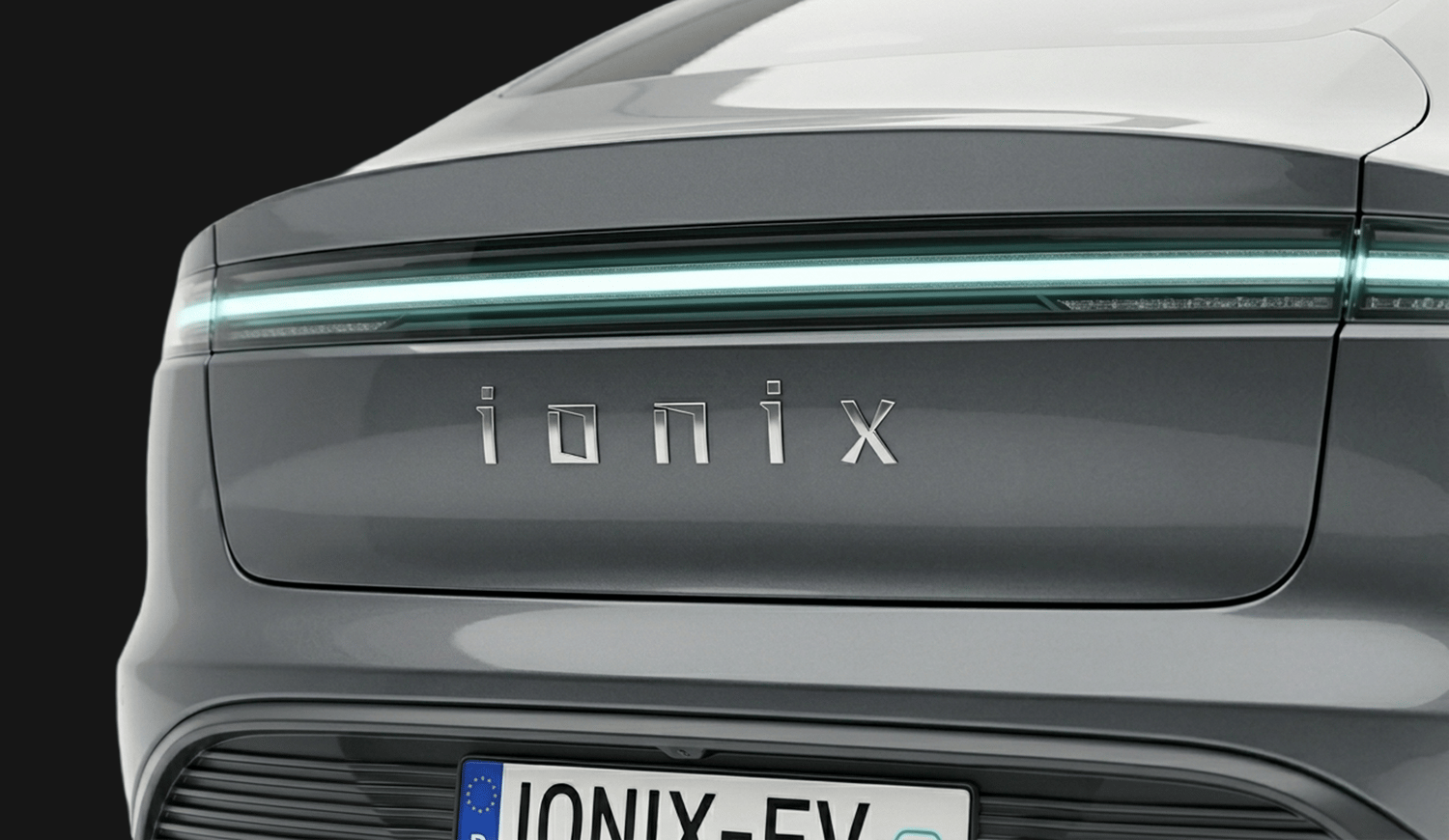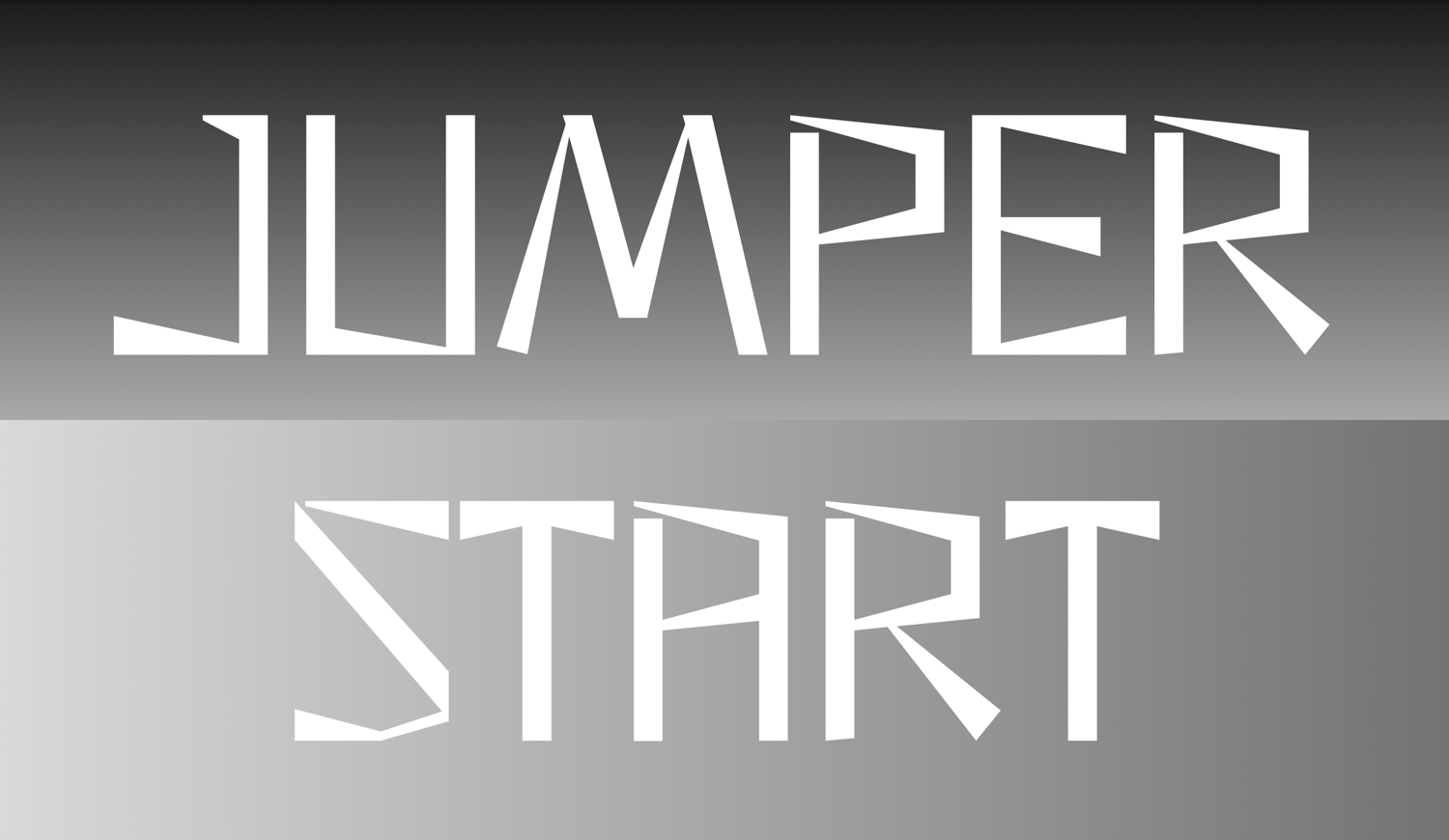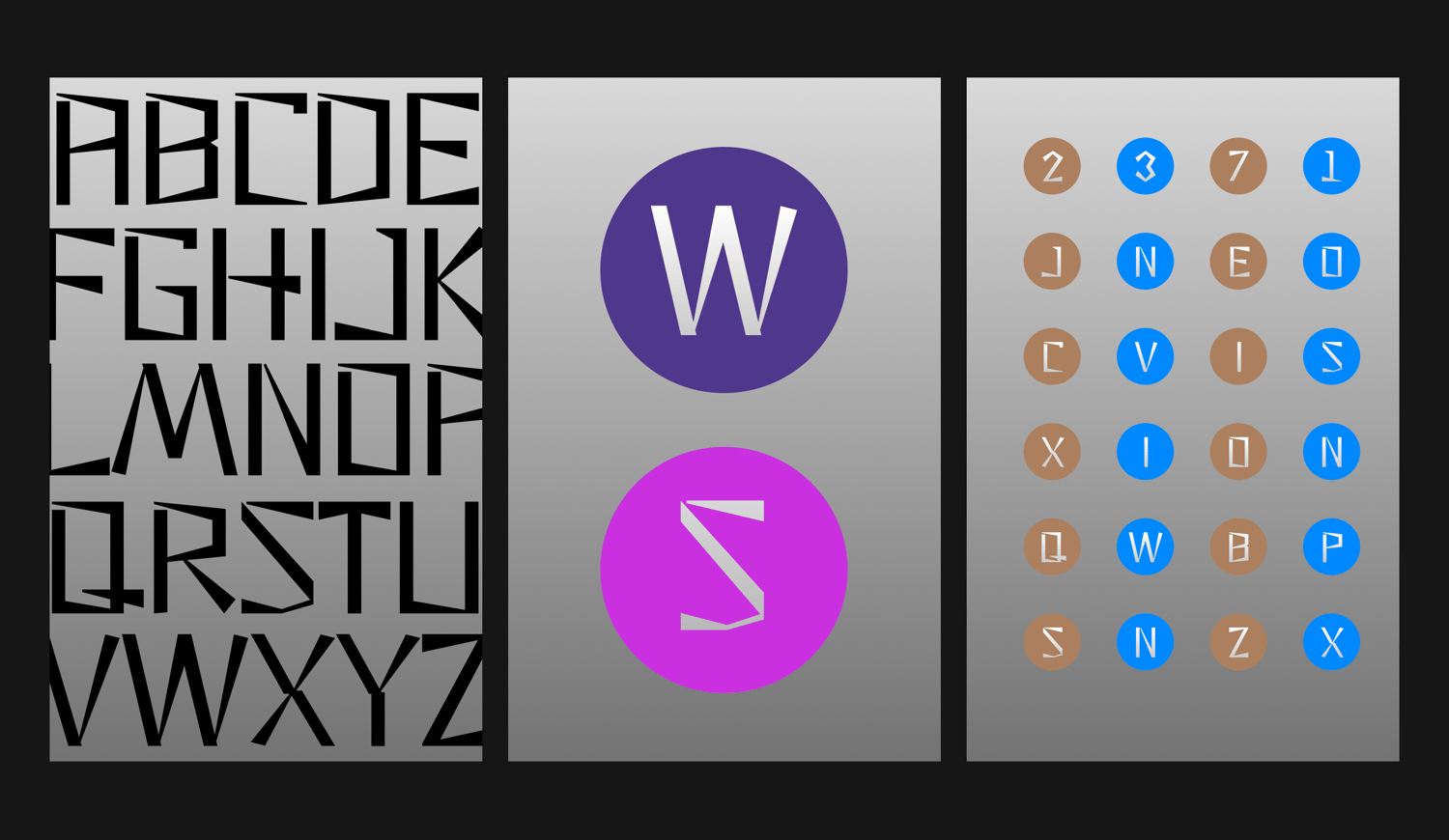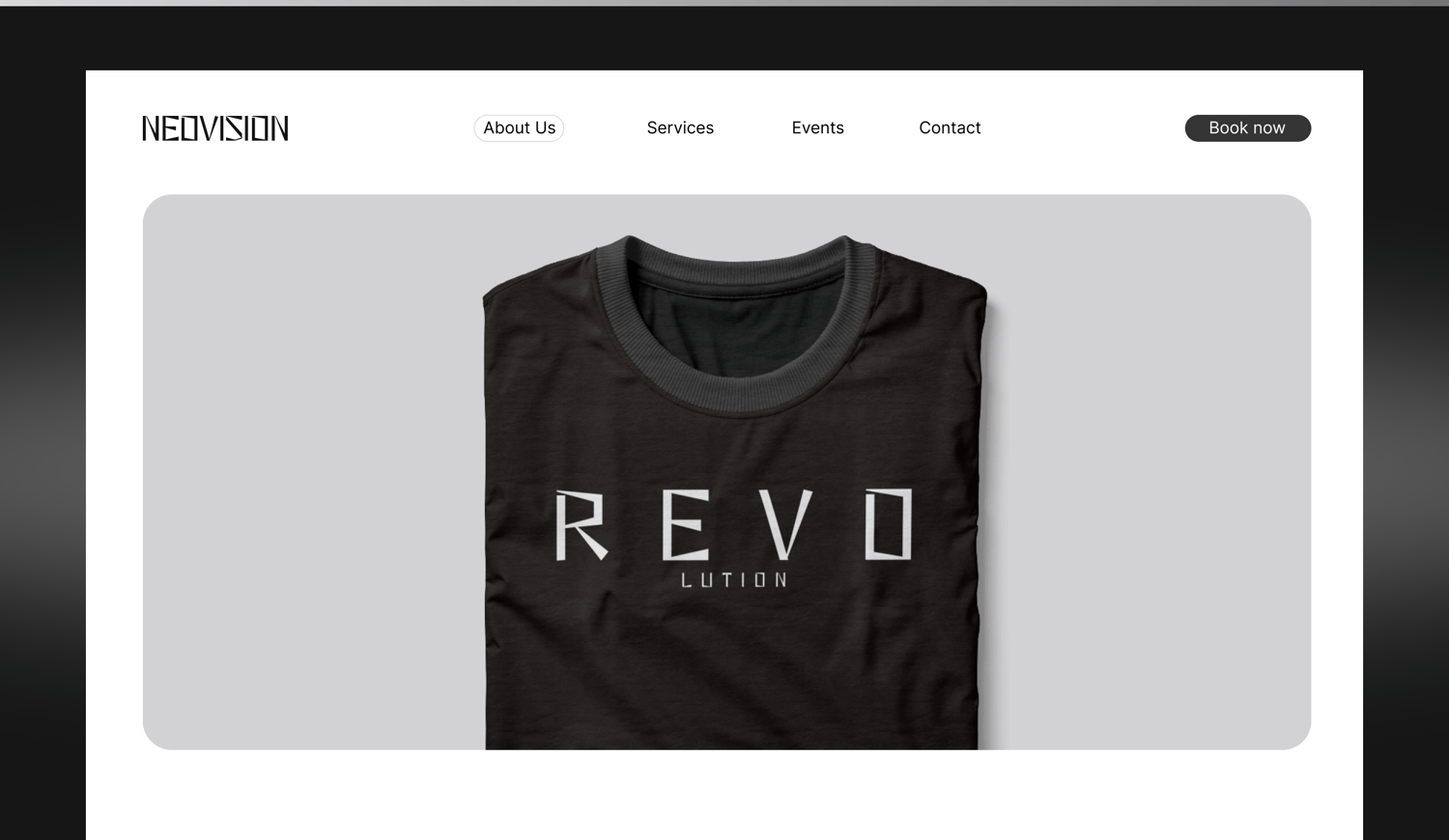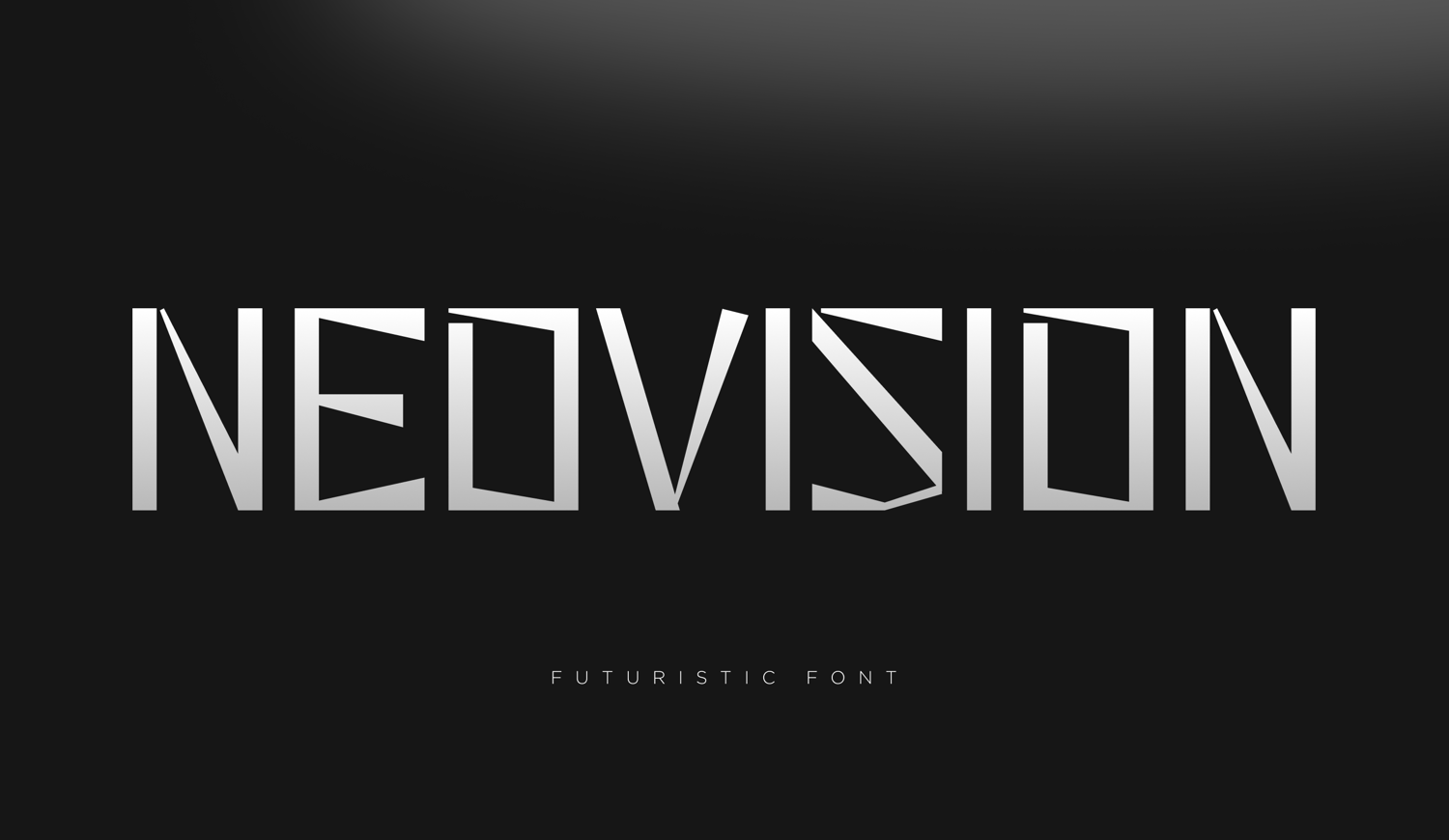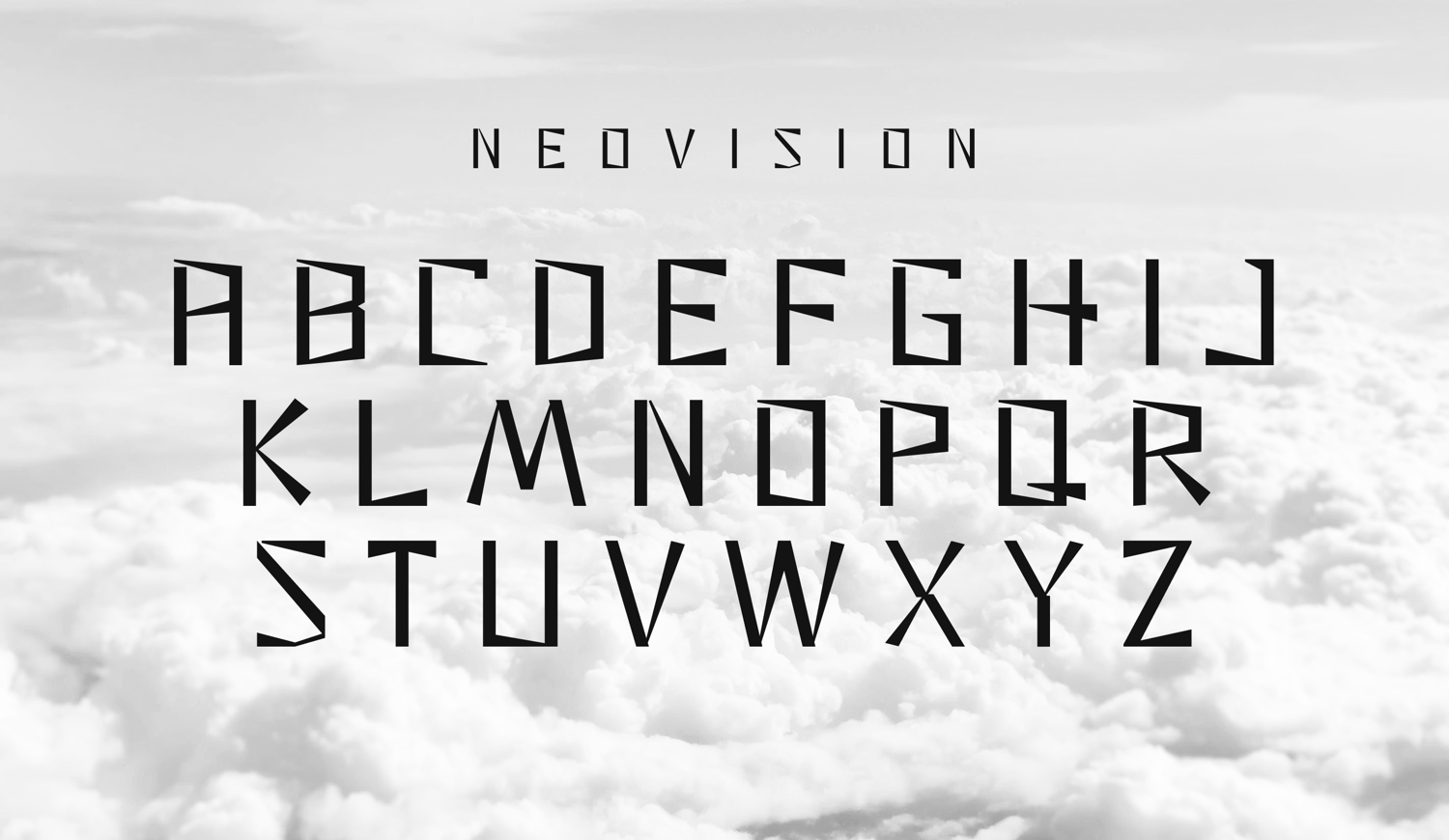
FT Neovision - Futuristic Sci-Fi Display Font for High-Tech Branding
Elevate your visual identity to the next dimension with FT Neovision.
FT Neovision is a bold, futuristic display font meticulously engineered by Firstype Studio. Defined by its aggressive geometric structure and sharp, blade-like terminals, this typeface captures the raw essence of high-tech innovation and cinematic scale. Its wide, architectural stance provides a powerful and forward-thinking presence that demands immediate attention.
Designed for the digital age, FT Neovision breaks traditional letterforms with precise, stencil-like cuts and a distinctive cyberpunk aesthetic. It is the ultimate choice for designers looking to deliver a sophisticated, industrial edge to modern projects.
Key Features:
- Sharp Geometric Design: Crafted with high technical precision for a modern, mechanical feel.
- Architectural Stance: Wide proportions ideal for maximum impact in titles and headlines.
- Cutting-Edge Aesthetic: Perfectly aligned with current sci-fi and high-tech design trends.
Perfect for:
- Tech & Aerospace Branding: Logos for AI, EV, and innovative startups.
- Gaming & Esports: Modern UI/UX, team identities, and streaming graphics.
- Cinematic Projects: Movie titles, sci-fi posters, and book covers.
- Apparel & Streetwear: Bold graphic tees and high-end merchandise branding.